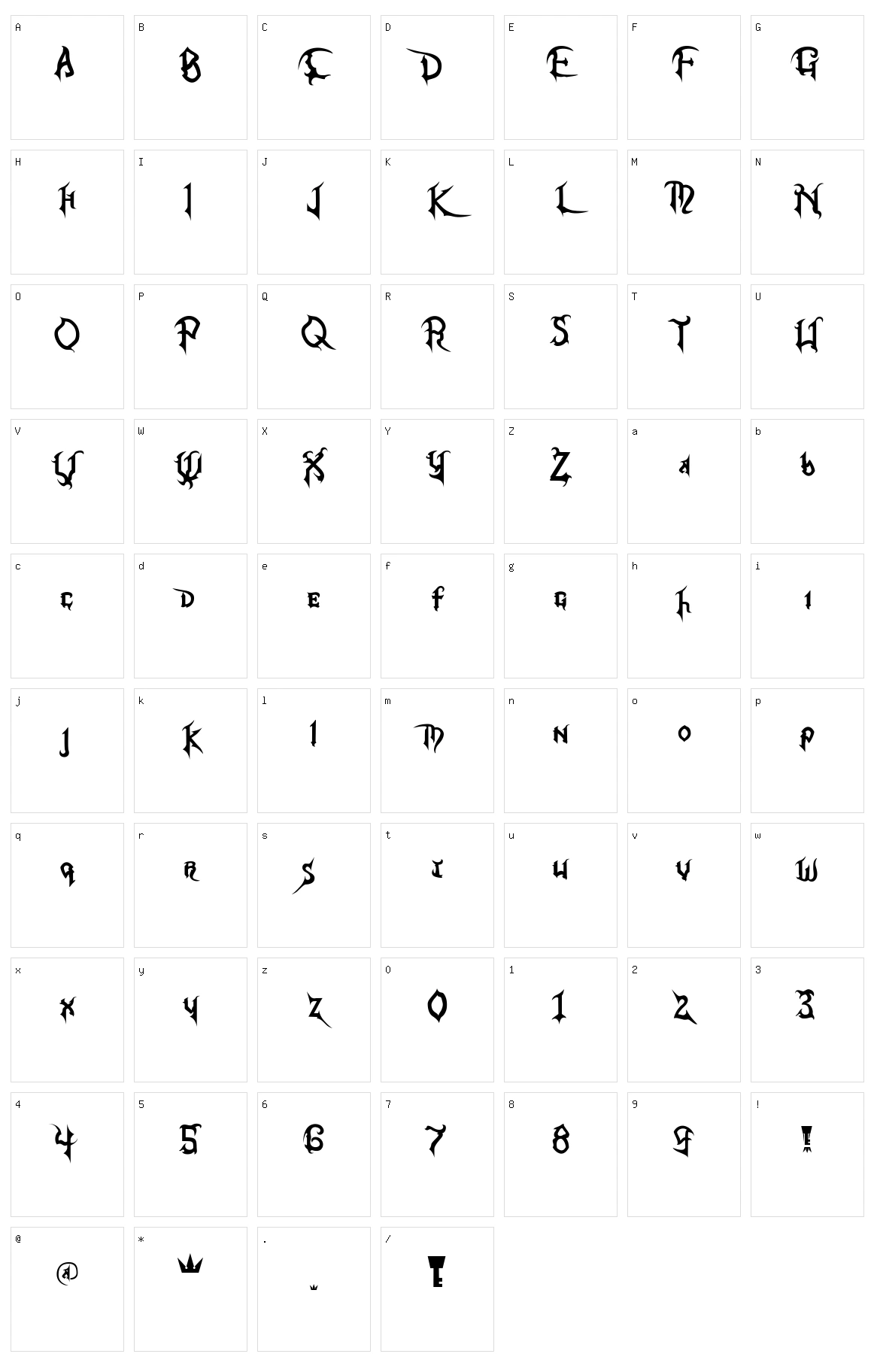
The free font Kingdom Hearts is carefully designed by Eliot Truelove, showcasing a thoughtful balance of creativity and usability and belongs to the Gothic font family. When you download the ZIP file, it contains only 17 KB of font files, making it lightweight and quick to download. Please review the license details below to understand permitted usage and distribution rights. If license information is not available, we recommend using this font for personal projects only or contacting the author directly for commercial usage permissions.